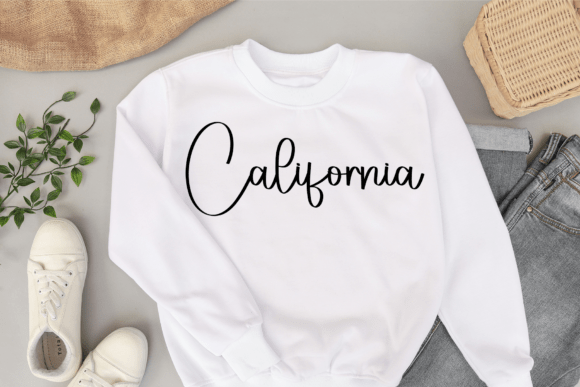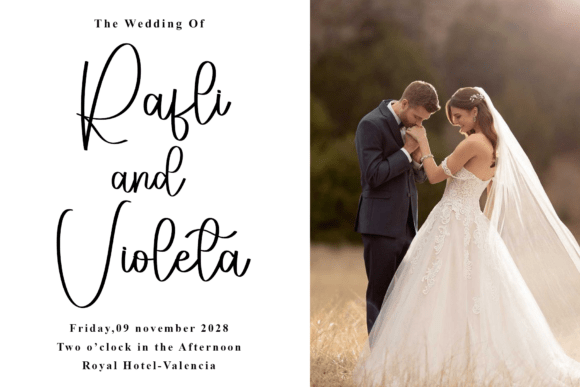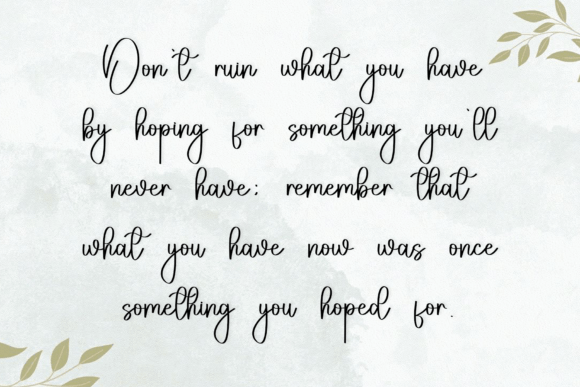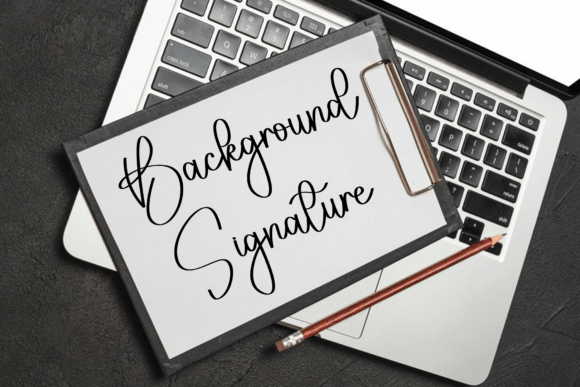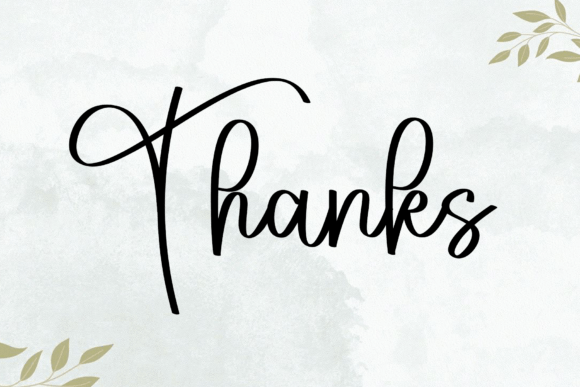
Introducing Autography Font: Elevate Your Designs with Elegant Handwritten Style
Are you looking for a font that adds a touch of sophistication and elegance to your designs? Look no further than Autography Font, a beautiful handwritten font that exudes softness and grace. With its gentle strokes and feminine touch, Autography captures the essence of a handwritten signature, making it perfect for a variety of creative projects.
The Characteristics of Autography Font
Autography Font is an elegant handwritten font that boasts a range of characteristics that make it ideal for designers and crafters. Some of its key features include:
- Soft and Graceful Strokes: Autography’s strokes are smooth and fluid, giving the font a delicate and refined appearance.
- Feminine Touch: The font has a distinctly feminine feel, making it perfect for projects that require a touch of elegance and sophistication.
- Handwritten Signature Style: Autography captures the essence of a handwritten signature, adding a personal and unique touch to your designs.
Uses for Autography Font
Autography Font is a versatile font that can be used in a variety of creative projects, including:
- Invitations: Add a touch of elegance to your wedding invitations, birthday invitations, or any other special occasion.
- Greeting Cards: Create beautiful and heartfelt greeting cards for any occasion with Autography Font.
- Personal Branding: Use Autography Font to add a touch of sophistication to your personal brand, including your logo, business cards, and website.
- Stationery: Create beautiful stationery, including letterheads, notebooks, and journals, with Autography Font.
Why Choose Autography Font?
There are many reasons why Autography Font stands out from other fonts, including:
- Timeless Charm: Autography Font has a timeless charm that will never go out of style, making it a great investment for designers and crafters.
- Elegant and Refined: The font’s elegant and refined appearance makes it perfect for projects that require a touch of sophistication.
- Easy to Read: Autography Font is easy to read, making it perfect for body text and other applications where readability is important.
Tips for Using Autography Font
Here are some tips for getting the most out of Autography Font:
- Use it Sparingly: Autography Font is a elegant and refined font, so use it sparingly to add a touch of sophistication to your designs.
- Pair it with Other Fonts: Pair Autography Font with other fonts to create a unique and interesting contrast.
Autography Font is a beautiful and elegant handwritten font that is perfect for designers and crafters looking to add a touch of sophistication to their projects. With its soft and graceful strokes, feminine touch, and handwritten signature style, Autography Font is ideal for invitations, greeting cards, personal branding, and more. Whether you’re looking to create a timeless and elegant design or simply want to add a touch of refinement to your project, Autography Font is a great choice.